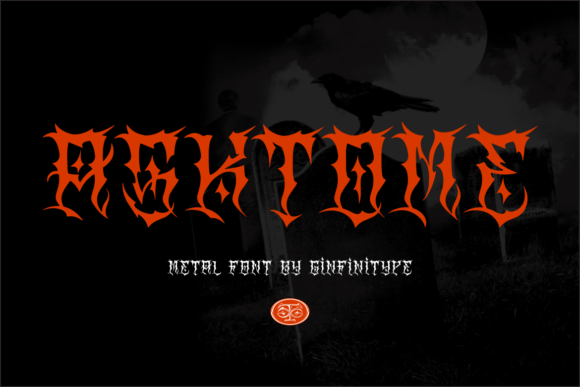
Unleash the Power of Metal with Asktome Font
I’ll never forget the design project that led me to discover Asktome Font. I was working on a band merchandise design for a metal music festival, and I was struggling to find a font that captured the raw energy and intensity of the genre. The client wanted something bold, edgy, and uncompromising – and I was determined to deliver. That’s when I stumbled upon Asktome, a striking font that embodies the spirit of metal heads everywhere.
A Personal Review of Asktome Font
As a designer, I’m always on the lookout for fonts that can elevate my designs and help my clients stand out. Asktome Font has quickly become one of my go-to fonts for metal-inspired projects. Here’s what I love about it:
- ✨ **Bold and edgy design**: Asktome’s sharp angles and bold lines make it perfect for creating eye-catching logos, posters, and promotional materials.
- ✅ **Highly versatile**: This font can be used for a wide range of projects, from band merchandise to album covers, and even dynamic graphics for live events.
- 💥 **Uncompromising look**: Asktome delivers a powerful presence that’s sure to resonate with metal fans and capture the essence of the genre.
Of course, no font is perfect, and Asktome has a few quirks to keep in mind:
- 🤔 **Limited use in formal contexts**: Asktome’s bold design may not be suitable for more formal or traditional projects, such as corporate branding or wedding invitations.
- ⚠️ **Glyph support**: While Asktome supports a wide range of glyphs, some users may find that certain special characters or ligatures are not available.
The Story Behind Asktome Font
Asktome Font was designed with metalheads in mind. The designer, a metal enthusiast themselves, wanted to create a font that captured the raw energy and intensity of the genre. With its bold lines and sharp angles, Asktome is the perfect embodiment of the metal spirit.
| Font Name | Asktome Font |
| Author | ginfinitype |
| What type of projects is Asktome Font best suited for? | Asktome Font is perfect for metal-inspired projects, such as band merchandise, album covers, posters, and promotional materials. |
| Is Asktome Font suitable for formal contexts? | No, Asktome Font’s bold design may not be suitable for formal or traditional projects. |
| Does Asktome Font support OpenType features? | Yes, Asktome Font supports OpenType features, such as ligatures and stylistic alternates. |